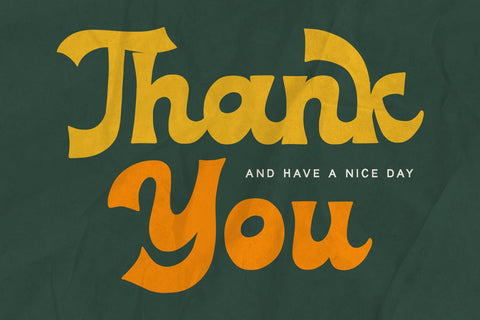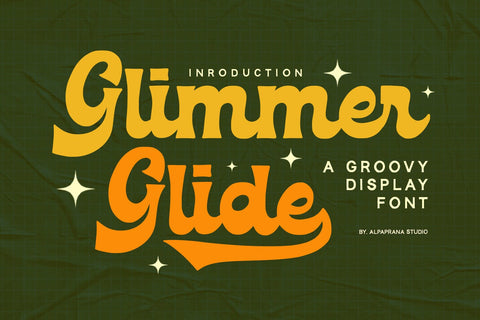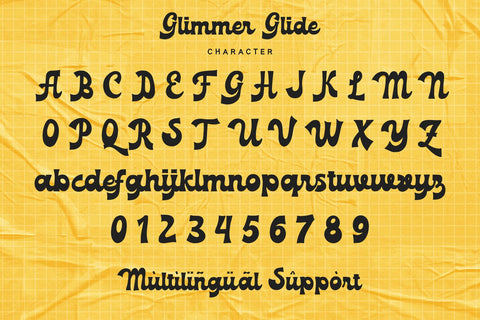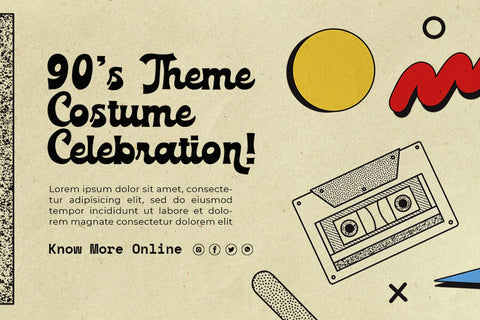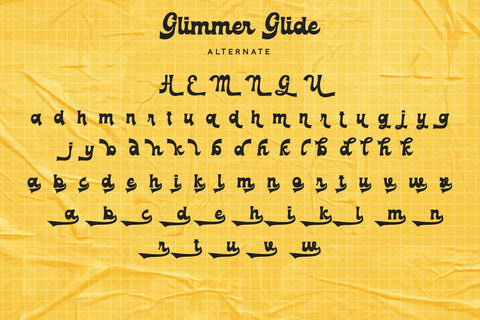
Glimmer Glide - Groovy Font
Glimmer Glide is a groovy script font with authentic and classic feels. It will be perfectly used for Branding, Logo Design, Lettering, Logotype, Clothing, Poster, magazine, packaging, posters, shopping bags, t-shirts, book covers, photography, special events and other design project.